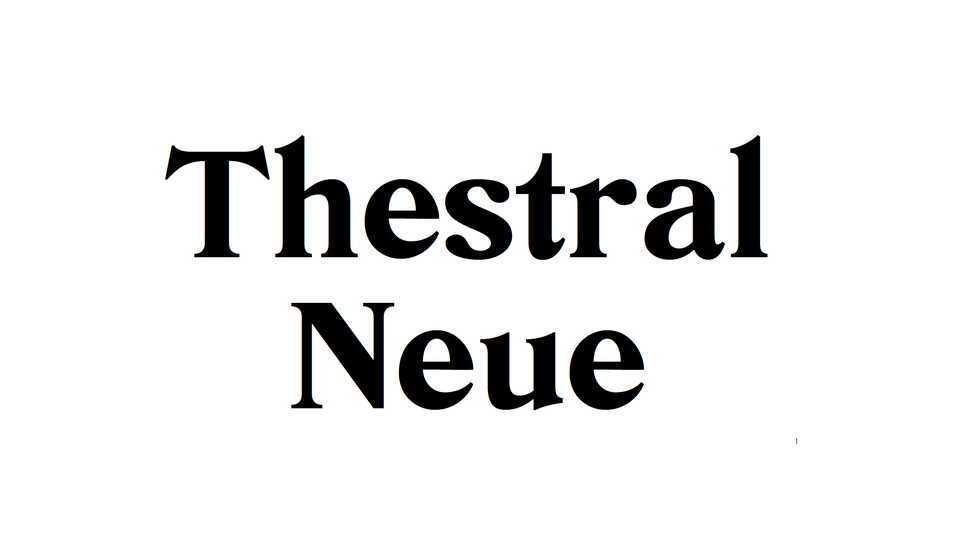
Download Thestral font, a serif typeface based type specimen from the Jacoby & Fils printing house in Grenoble. With strong, sharp serifs and a robust look, Thestral font captures the essence of vintage typography, delivering a timeless and impactful visual experience.
Designer: Pauline Maréchal